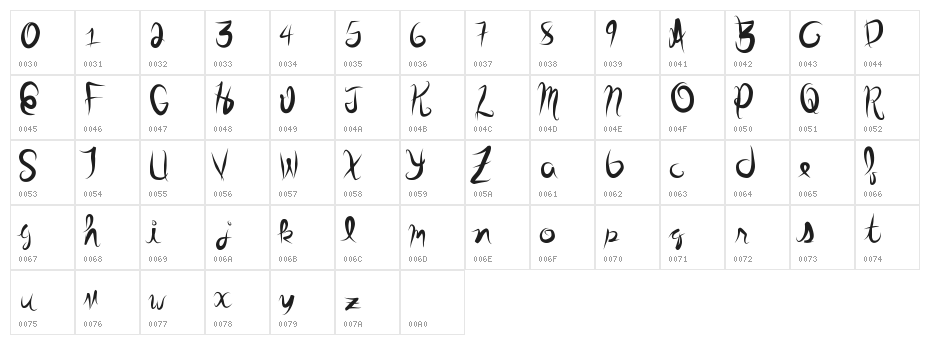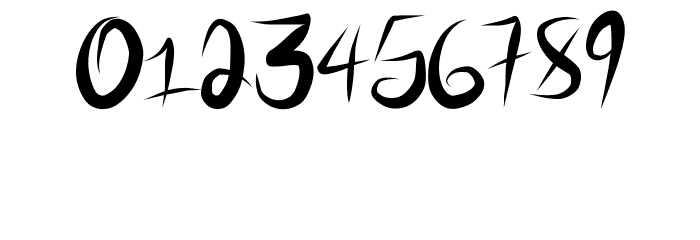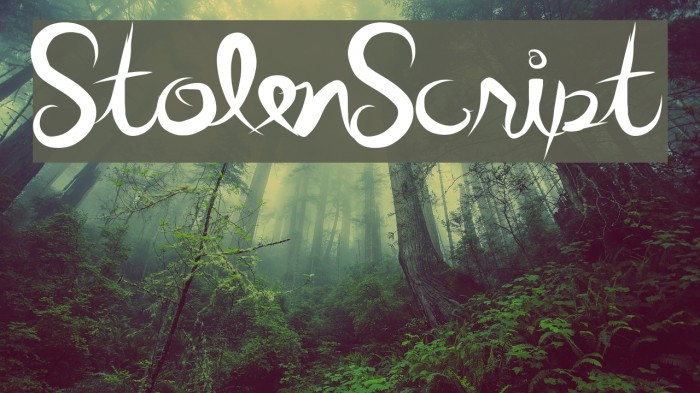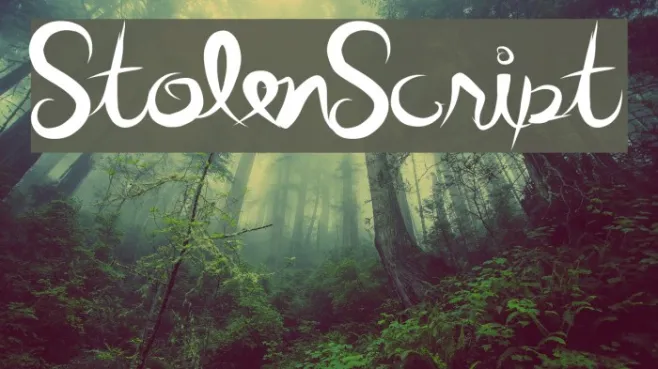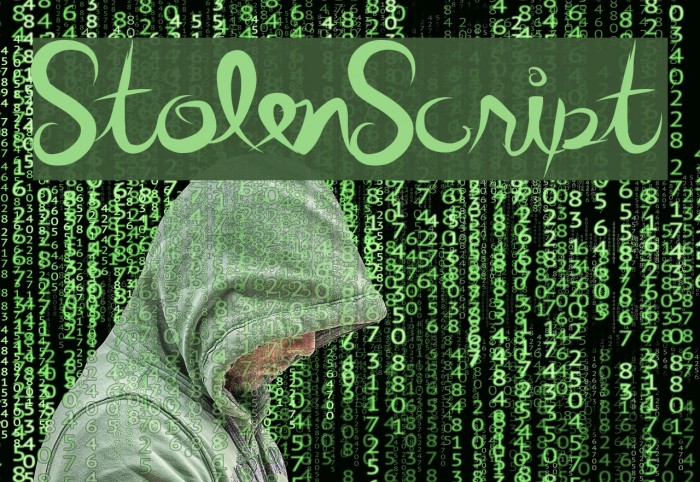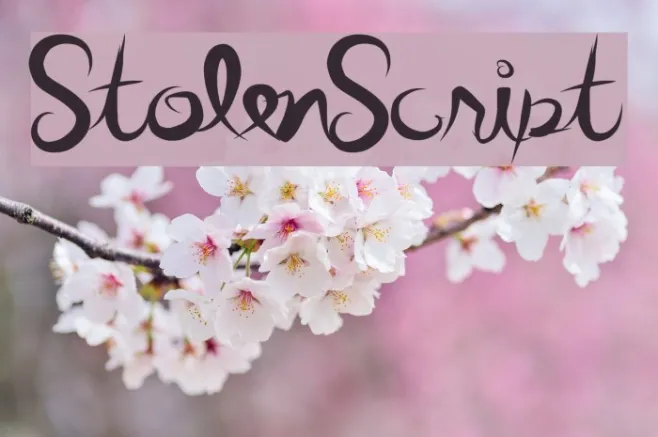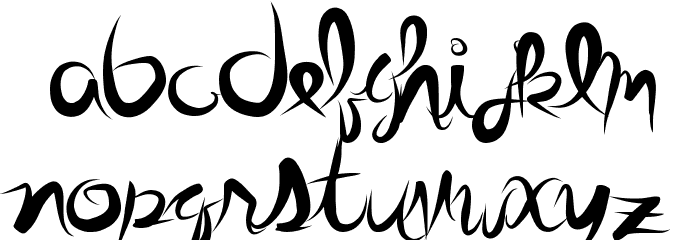
StolenScript Font
StolenScript Description
This font features a dynamic and expressive style with a strong calligraphic influence. The letters are characterized by dramatic, sweeping strokes and a high degree of curvature, giving it an energetic and artistic appearance. The uppercase letters are bold and prominent, while the lowercase letters maintain a fluid and connected form, enhancing the script-like quality. The numbers and special characters follow the same stylistic approach, ensuring consistency across all glyphs. The overall design is both decorative and impactful, making it suitable for projects that require a bold statement.